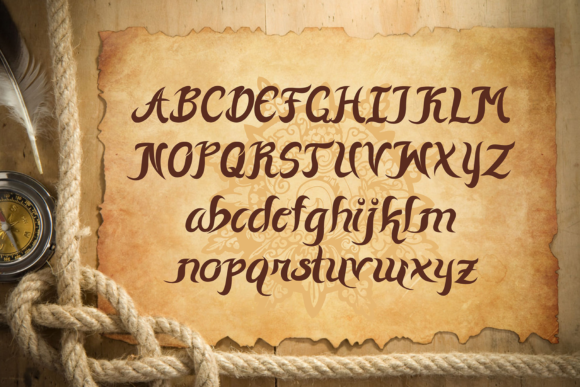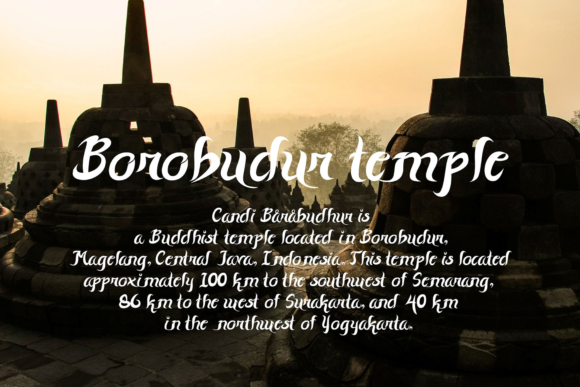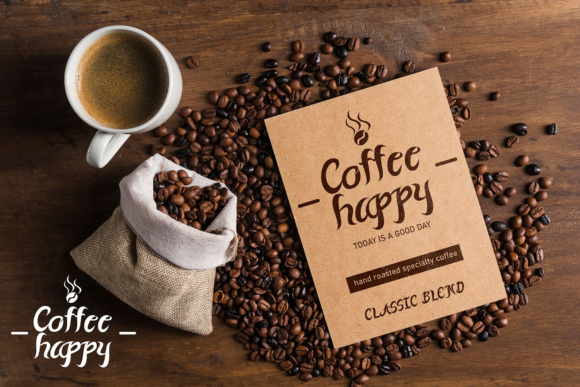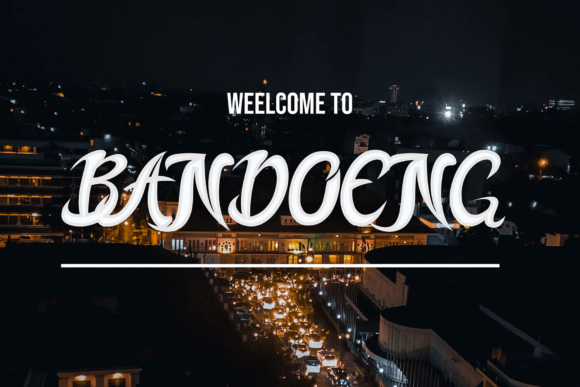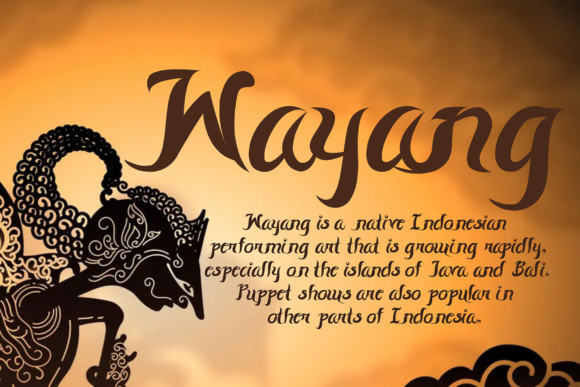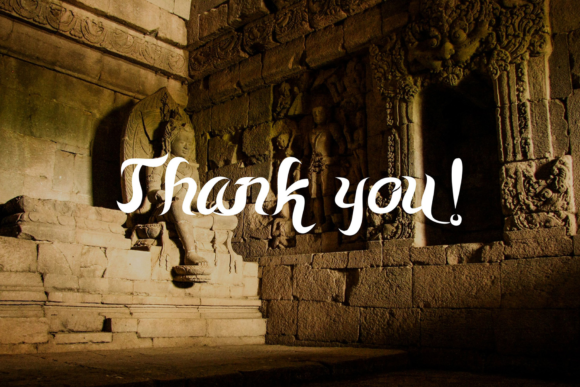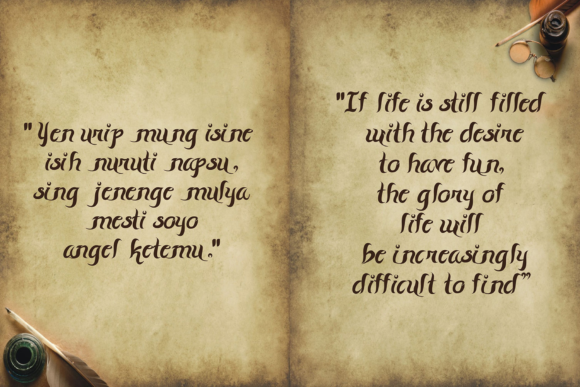
Java Temple Font
About Java Temple Font
Java Temple is a cool and brushed handwritten font. Whatever the topic, this font will be a wonderful asset to your font library, as it has the potential to enhance any creation.